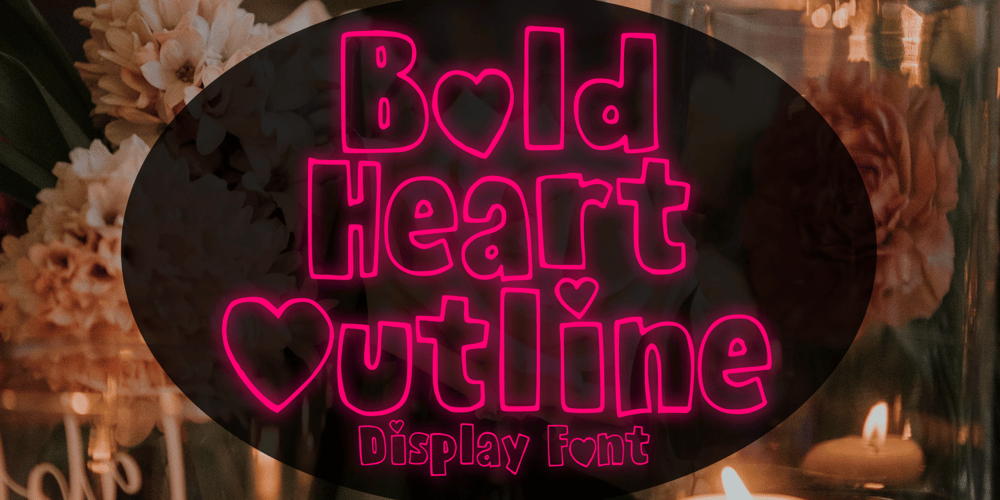
Bold Heart Outline
Bold Heart Outline font
Bold Heart Outline Font Family was designed by Gabriel Valentinus and published by Mvmet. Bold Heart Outline contains 1 styles and family package options. Bold Heart Outline is a lovely handmade paint font. You can use it for anything ranging from t-shirts, book designs, packaging and greeting cards to stickers and posters, or anything that needs a casual touch. If you want to use it for Valentine or other lovely themed designs, it will be your perfect font to pick. Fall in love with its incredibly versatile style, and use it to create lovely designs!